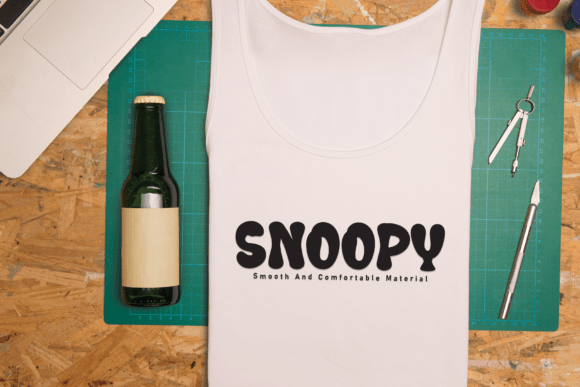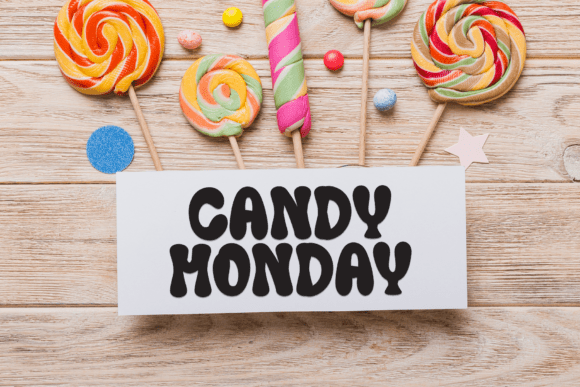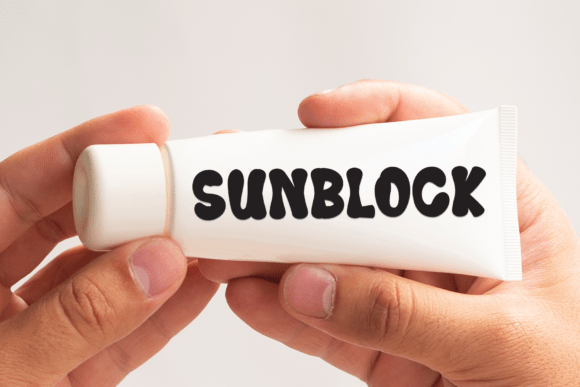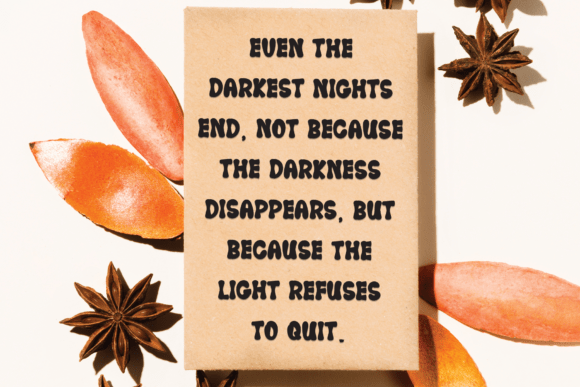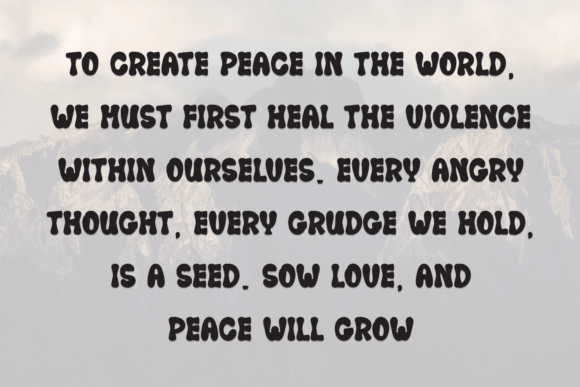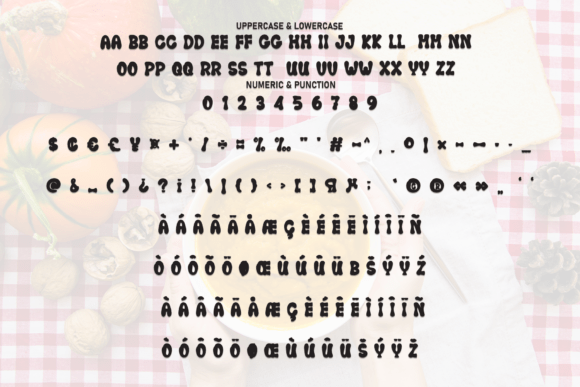
Introduction to Pumpkin Butter Font
Discover a captivating handwritten display font, exuding a warm and friendly vibe.
This enchanting typeface perfectly resonates with the sophistication of wedding invitations, the warmth of greeting cards, or any custom design yearning for an element of joy Garnished with a hint of sweetness and a touch of excitement, it harmoniously fuses visual attractiveness with practicality to breathe life into your creative concepts.
Key Features of Pumpkin Butter Font
Why Choose Pumpkin Butter Font?
Pumpkin Butter Font offers exceptional quality and versatility, making it a valuable addition to your design toolkit. Whether you’re creating for personal projects or commercial use, Pumpkin Butter Font delivers professional results.